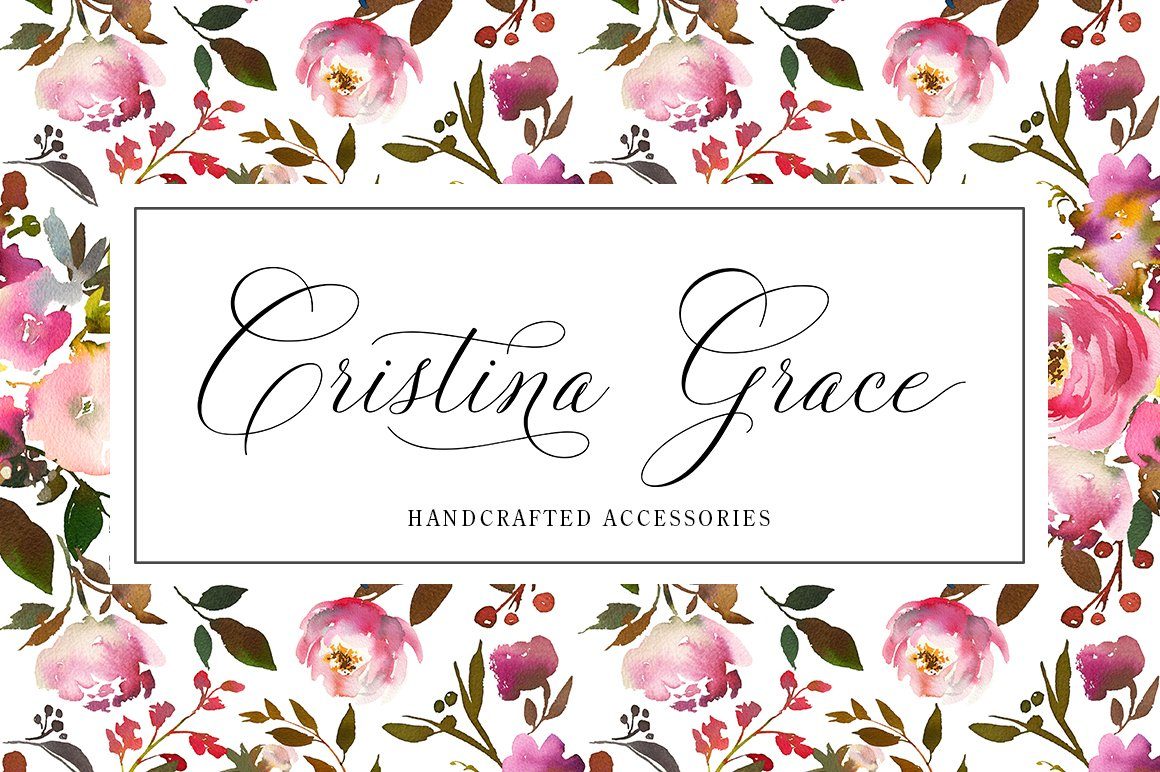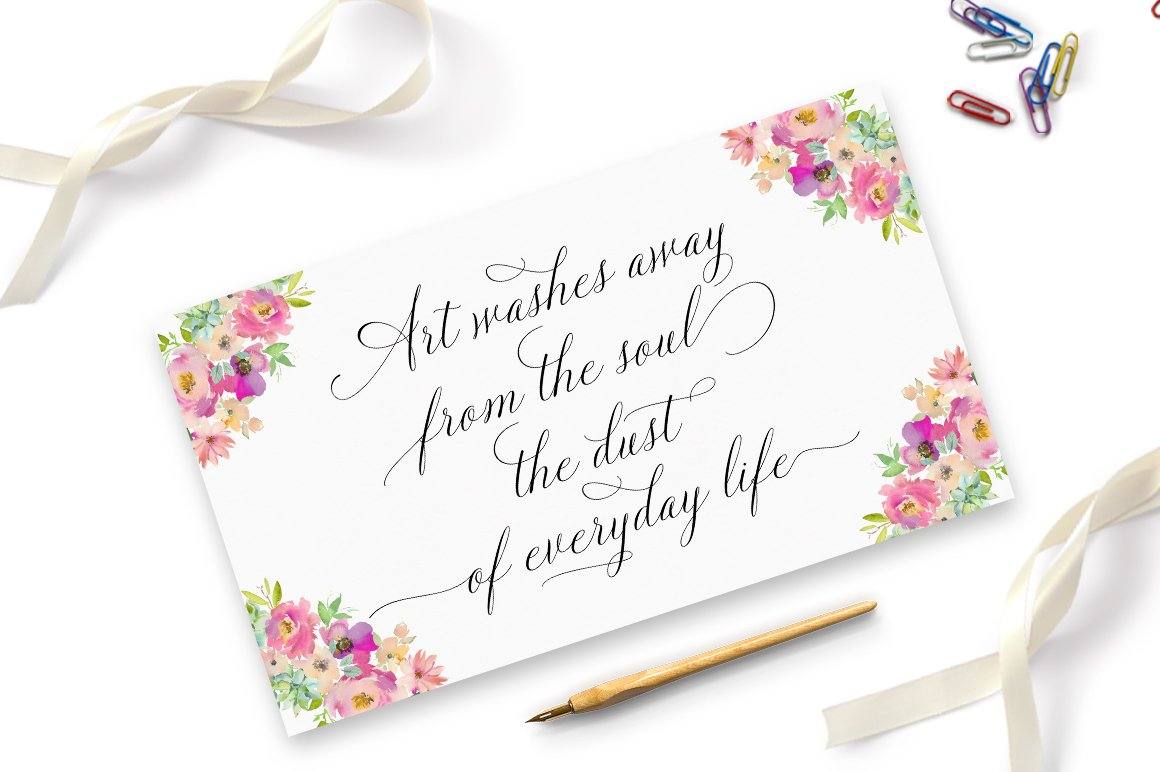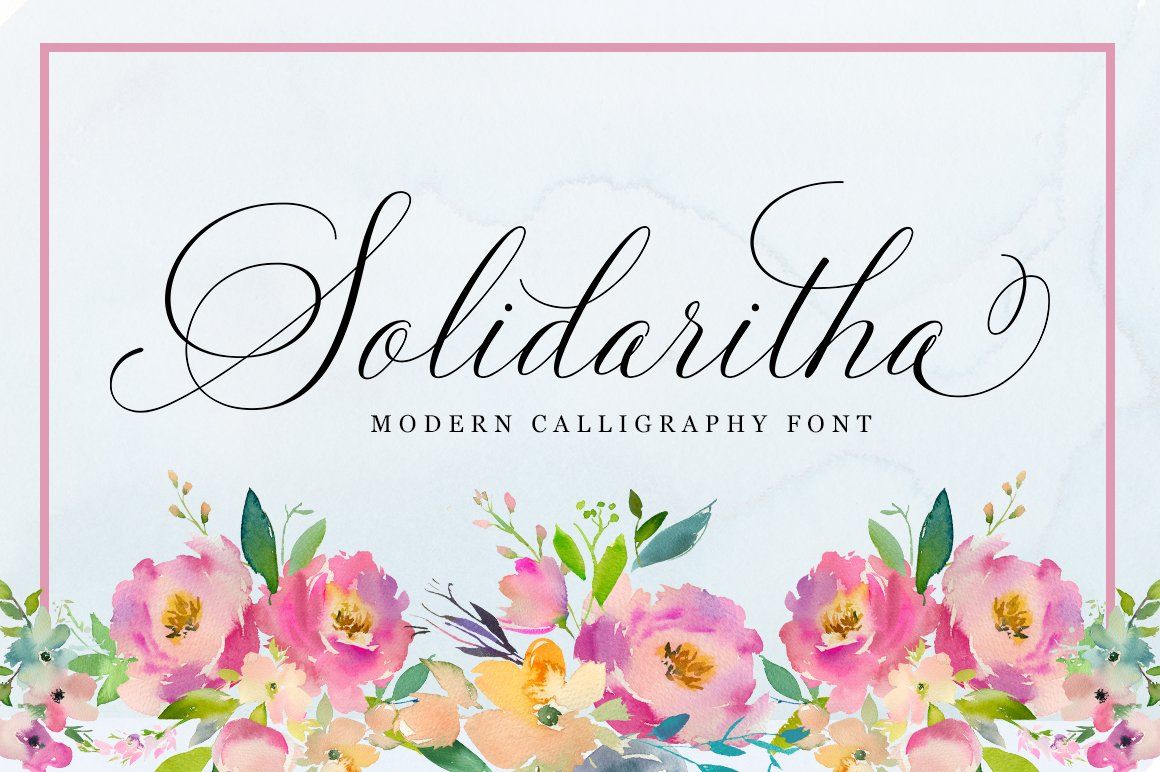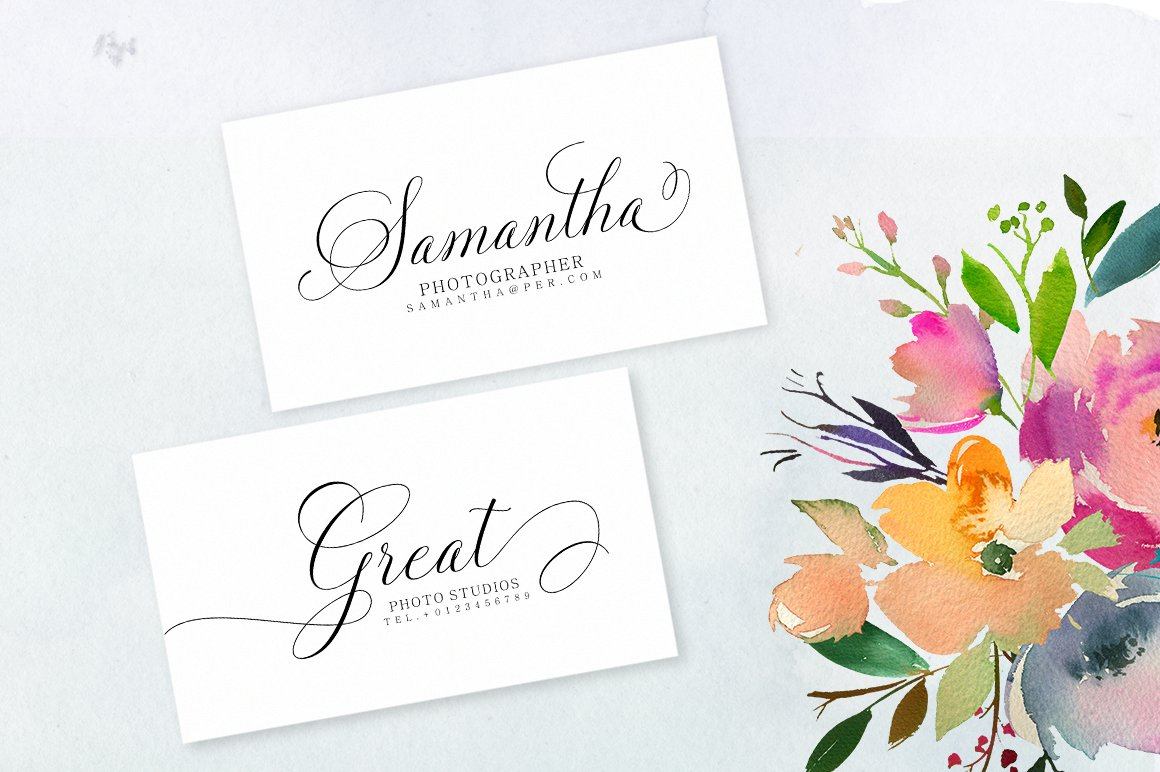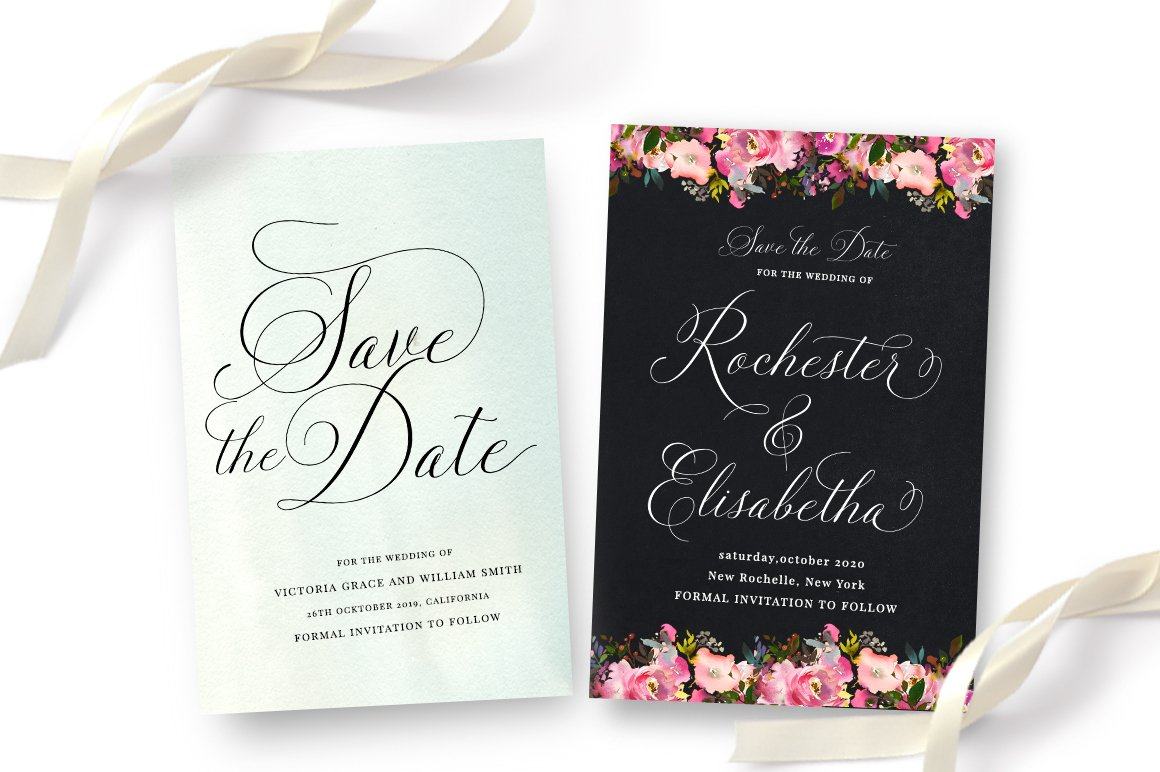
About Solidaritha Script
Solidaritha Script is a stylish calligraphy font that features a varying baseline, smooth line, classic and elegant touch. Can be used for various purposes.such as headings, signature, logos, wedding invitation, t-shirt, letterhead, signage, lable, news, posters, badges etc. Solidaritha Script features 389+ glyphs and 194 alternate characters. including initial and terminal letters, alternates, ligatures and multiple language support. Files included: -Solidaritha Script otf -Solidaritha Script ttf To enable the OpenType Stylistic alternates, you need a program that supports OpenType features such as Adobe Illustrator CS, Adobe Indesign & CorelDraw X6-X7, Microsoft Word 2010 or later versions. How to Access Alternate Characters in Photoshop CC. https://www.youtube.com/watch?v=xFlMwARHusY How to access all alternative characters using Adobe Illustrator: https://www.youtube.com/watch?v=XzwjMkbB-wQ How to use stylistic sets font in Microsoft Word 2010 or later versions: https://youtu.be/x1A_ilsBsGs https://www.youtube.com/watch?v=NVJlZQ3EZU0 There are additional ways to access alternates/swashes, using Character Map (Windows), Nexus Font (Windows), Font Book (Mac) or a software program such as PopChar (for Windows and Mac). How to access all alternative characters, using Windows Character Map with Photoshop: https://www.youtube.com/watch?v=Go9vacoYmBw Need help? If you need help or advice, please contact me by e-mail. Thank you for your purchase!